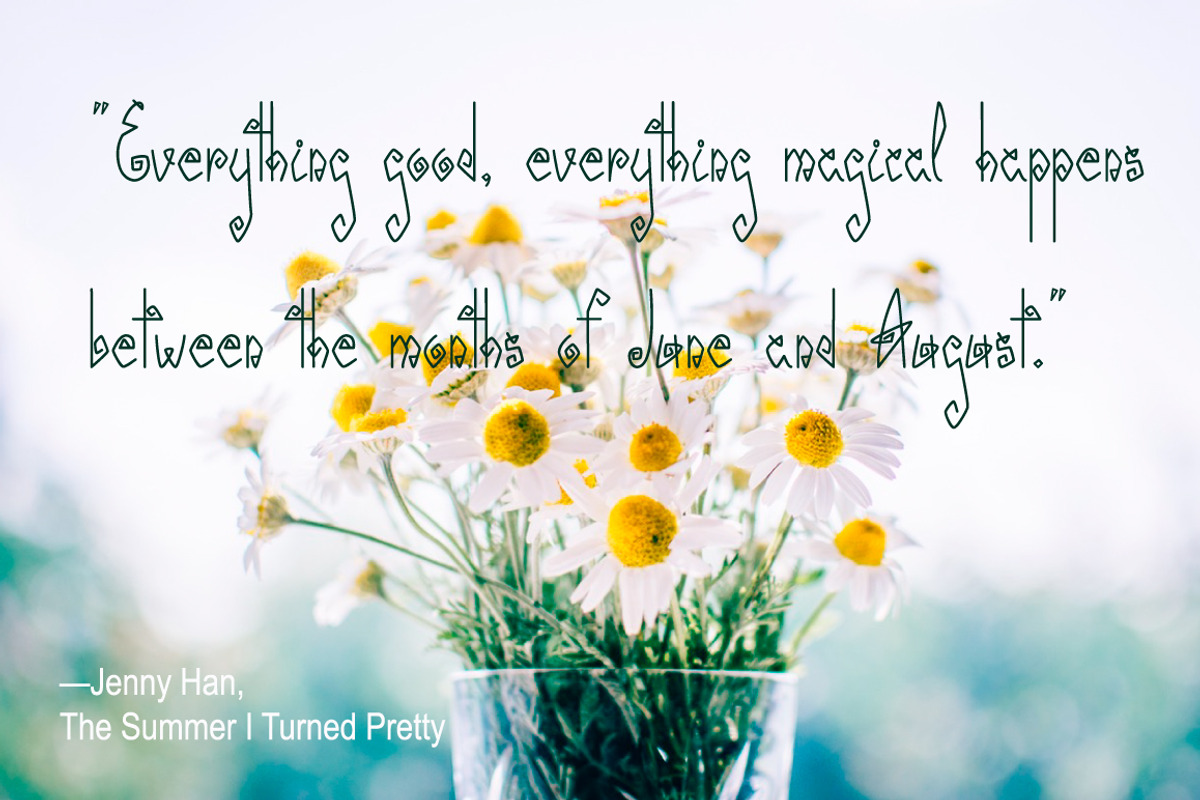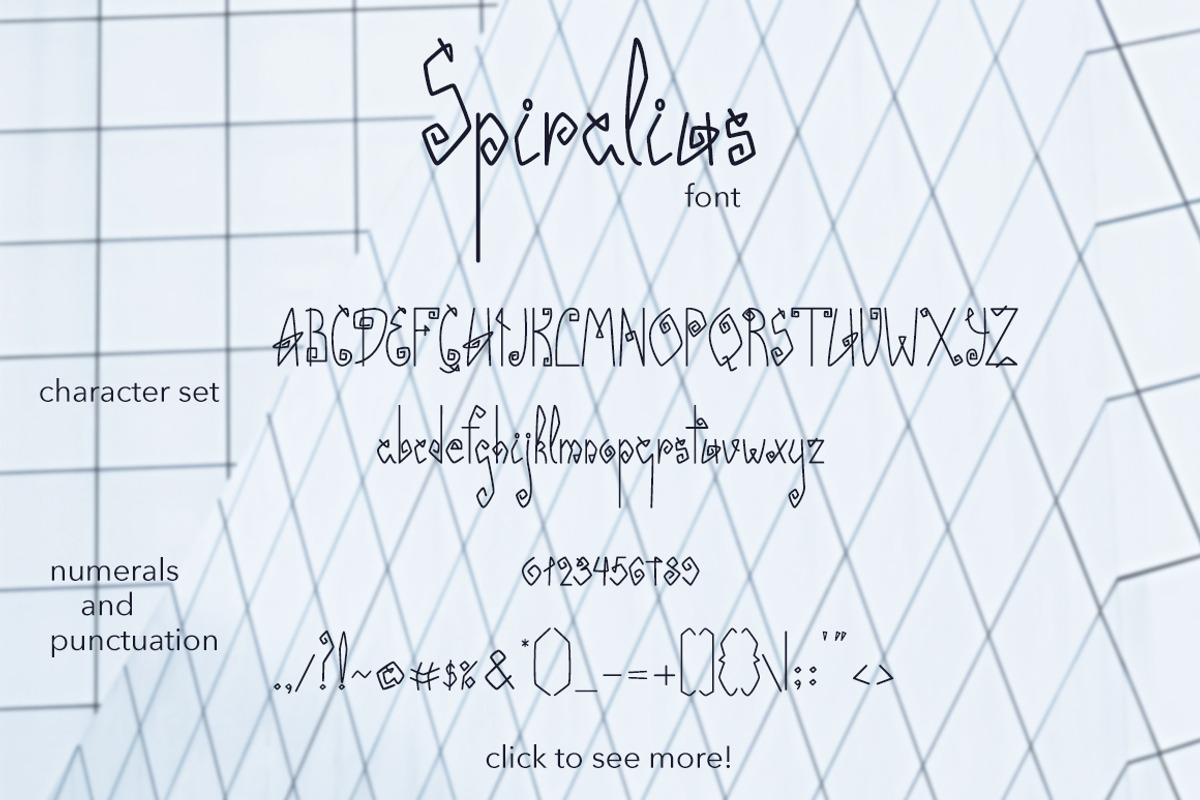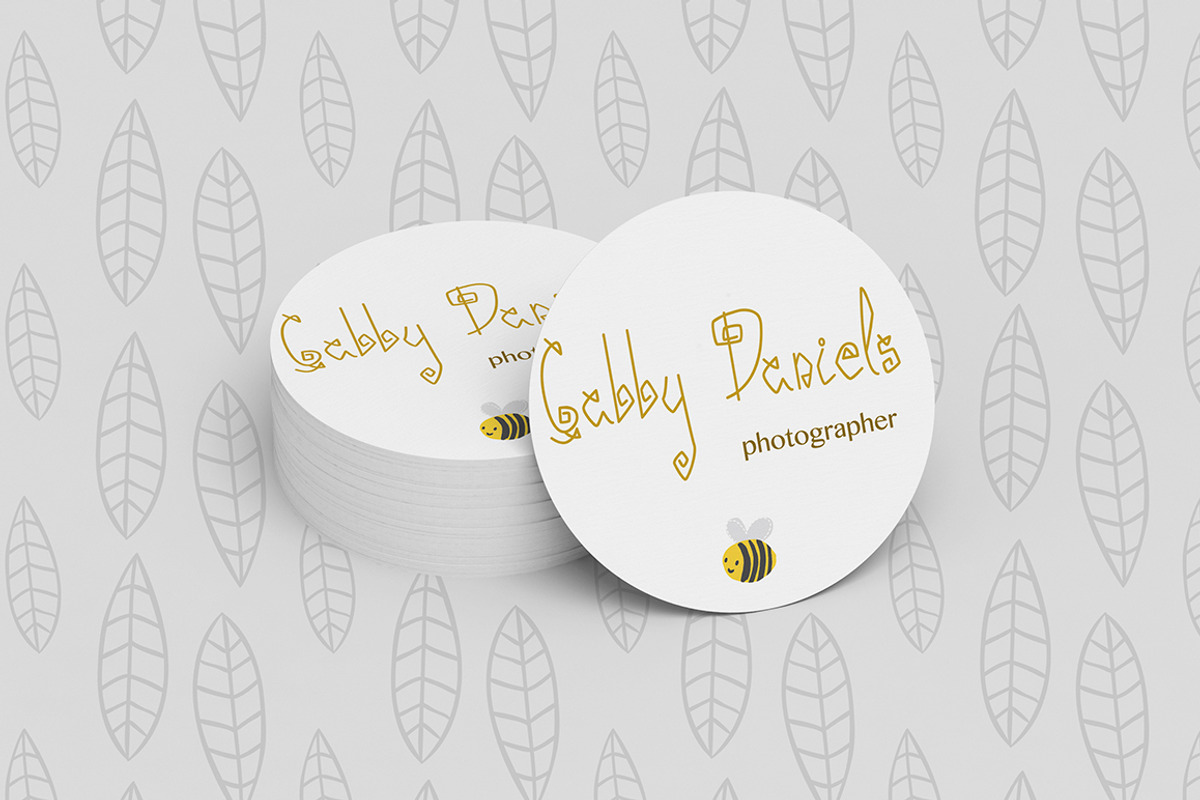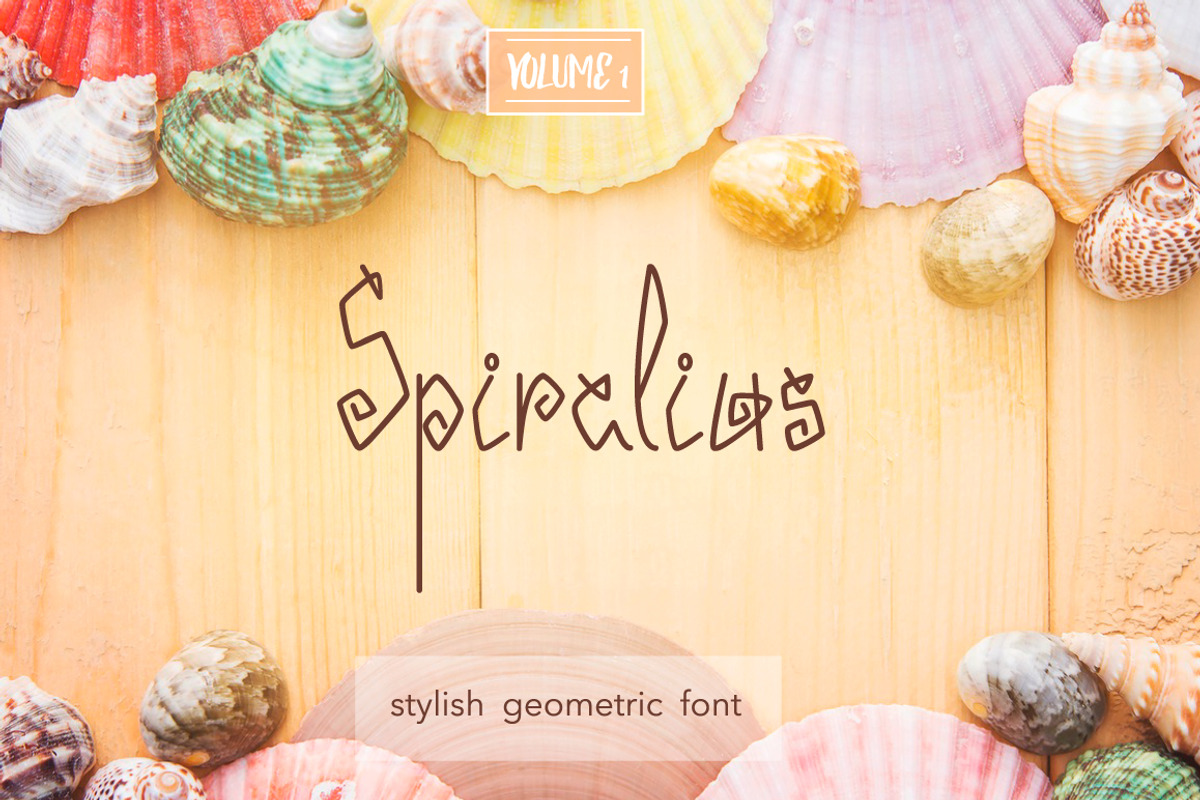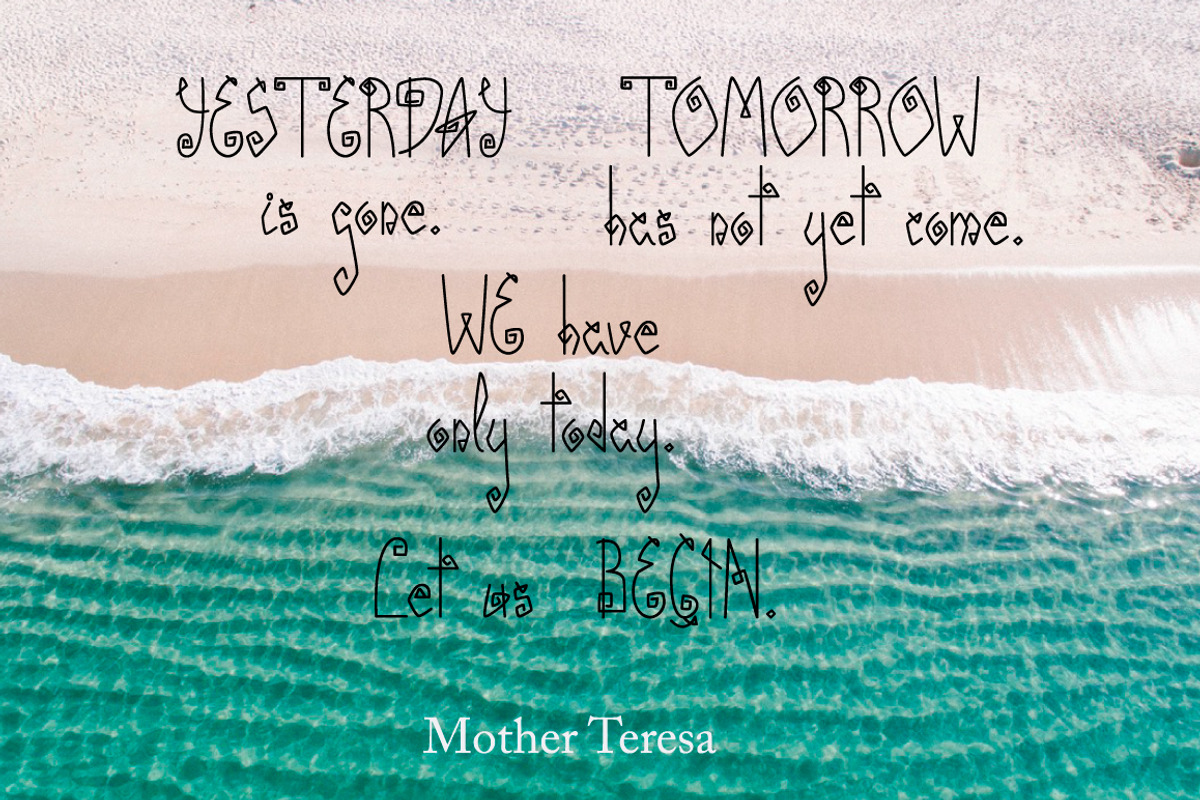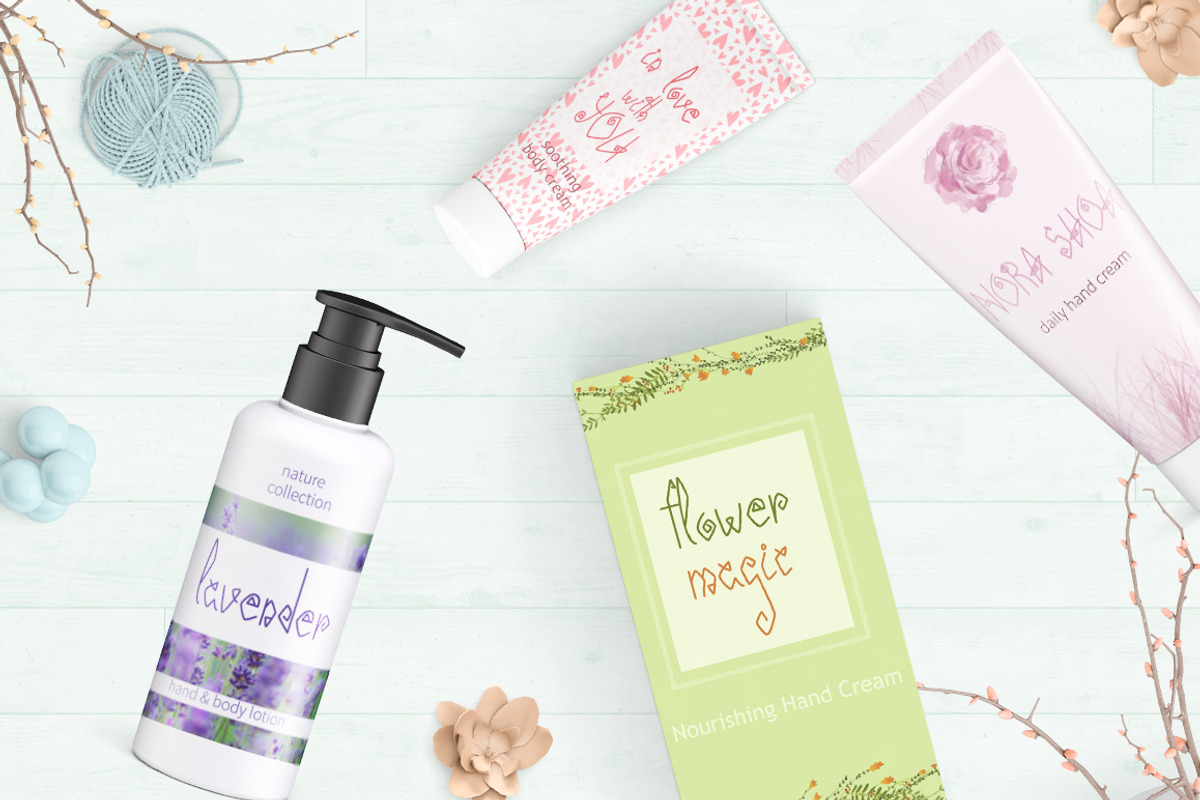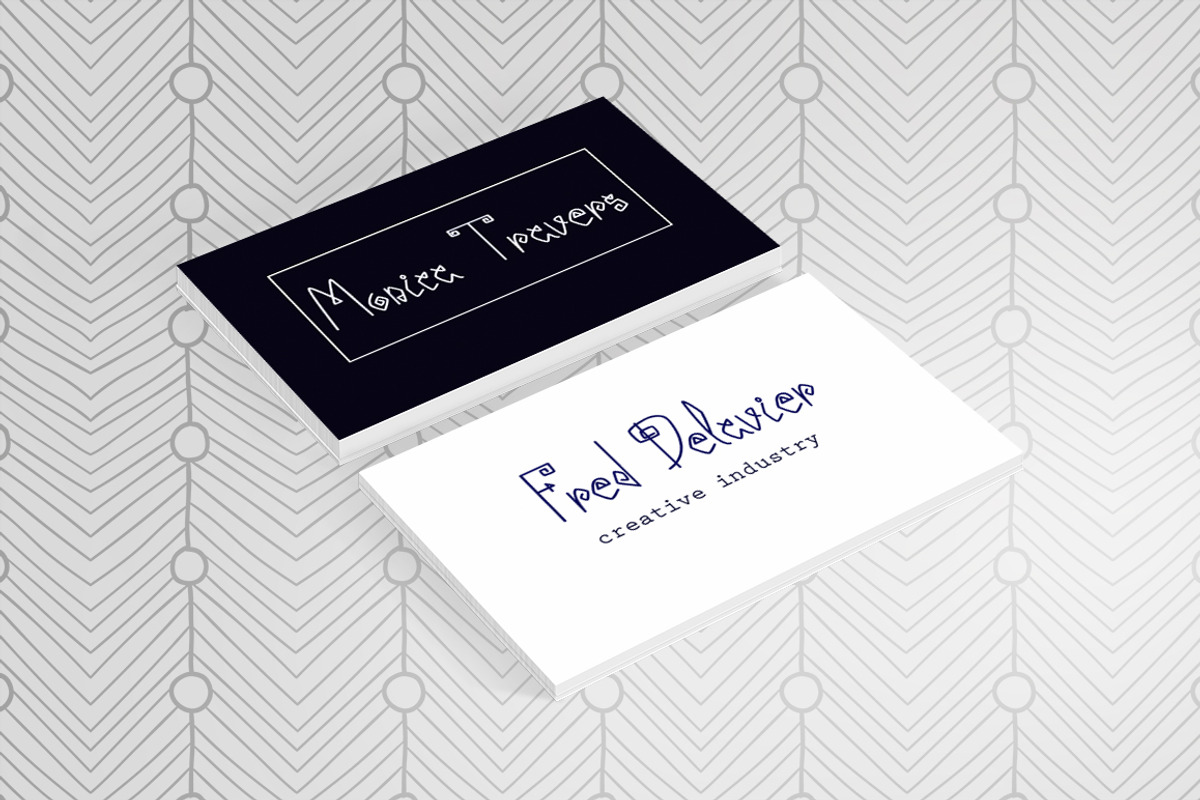
Spiralius Font. Volume 1
Let me introduce to you strict and seasoned font Spiralius, volume 1!
This font will look great on all your designs - from logos, greetings and company branding to wedding menu, home frame, book covers, magazines and more.
You’ll find a lot of ligatures - please, look through the presentation to find out more.
Spiralius supports the following languages: Cornish, Danish, Dutch, English, Filipino, Finnish, French, Galician, German, Indonesian, Irish, Italian, Malay, Norwegian Bokmal, Norwegian Nynorsk, Portuguese, Romansh, Spanish, Swedish, Swiss German.
Now I’m working on smooth Spiralius font - sweet and elegant sister of angle Spiralius font. So wait for her! :)